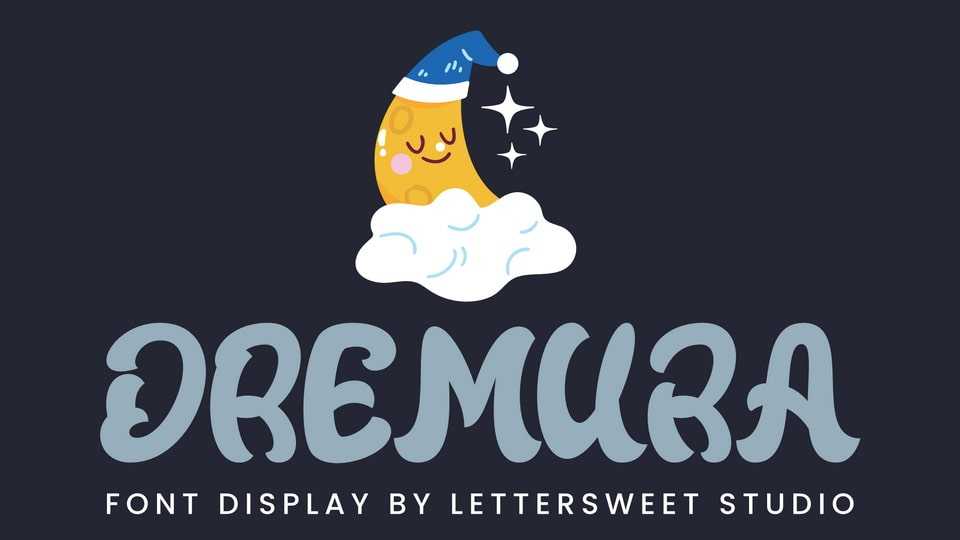
Download Dremura font, a whimsical display typeface perfect for dreamy designs and playful projects, inspired by bedtime stories, sleepy moons, and magical nights.